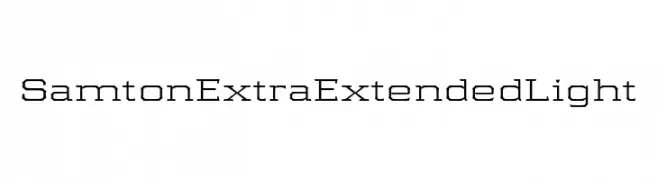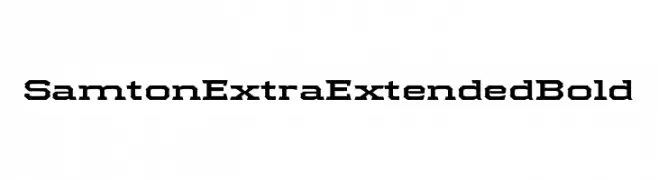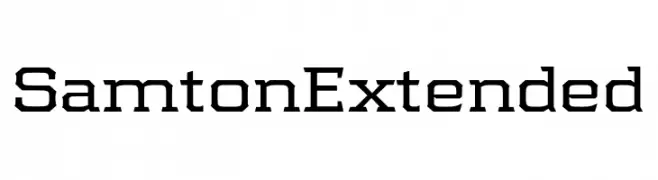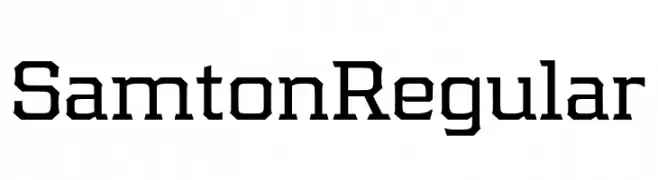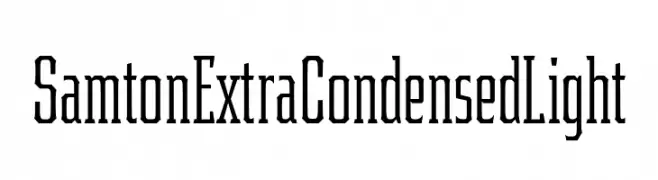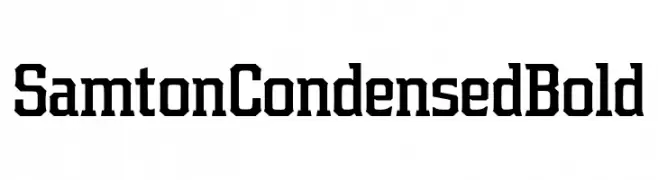
A playful, hand-drawn font with a youthful and energetic vibe.
A charming and elegant script font with flowing, cursive letterforms.
A festive font with Christmas-themed decorations on bold, rounded letters.
A bold, handwritten-style font with a playful and dynamic appearance.
A modern, rounded font with a light weight and geometric style.
A playful, hand-drawn font with rounded edges and a whimsical style.
A playful, hand-drawn font with rounded, bubbly characters.
A bold, playful font with an organic, handcrafted look.
A smooth, flowing script font with an elegant handwritten style.
A bold, serif-inspired font perfect for impactful headlines.
A modern, geometric monospaced font with low contrast and uniform spacing.
A modern, extra-extended light font with geometric and airy letterforms.
A bold, extended slab serif font with a modern yet vintage feel.
A bold, structured font with a modern, industrial feel.
A bold, slab serif font with geometric shapes and a vintage feel.
A bold, condensed font with angular, geometric letterforms.
A bold, geometric font with a modern and professional style.
A bold, extended font with a geometric, industrial style.
A tall, narrow, and modern condensed font with uniform stroke width.
A bold, condensed font with geometric precision and modern appeal.
A condensed, light font with a modern and geometric style.
A bold, extended slab serif font with a strong geometric presence.
A bold, extra-condensed font with a modern, impactful style.
A modern, extra-condensed font with bold, narrow characters.
A modern, geometric font with a structured and versatile design.
A bold, decorative font with sharp serifs and dramatic curves, ideal for impactful designs.
A bold, rugged font with a vintage, handcrafted feel.
A bold, condensed typeface with uniform strokes and minimal contrast.
A bold, cursive font with interconnected, rounded strokes.
A playful and elegant script font with flowing, cursive design.